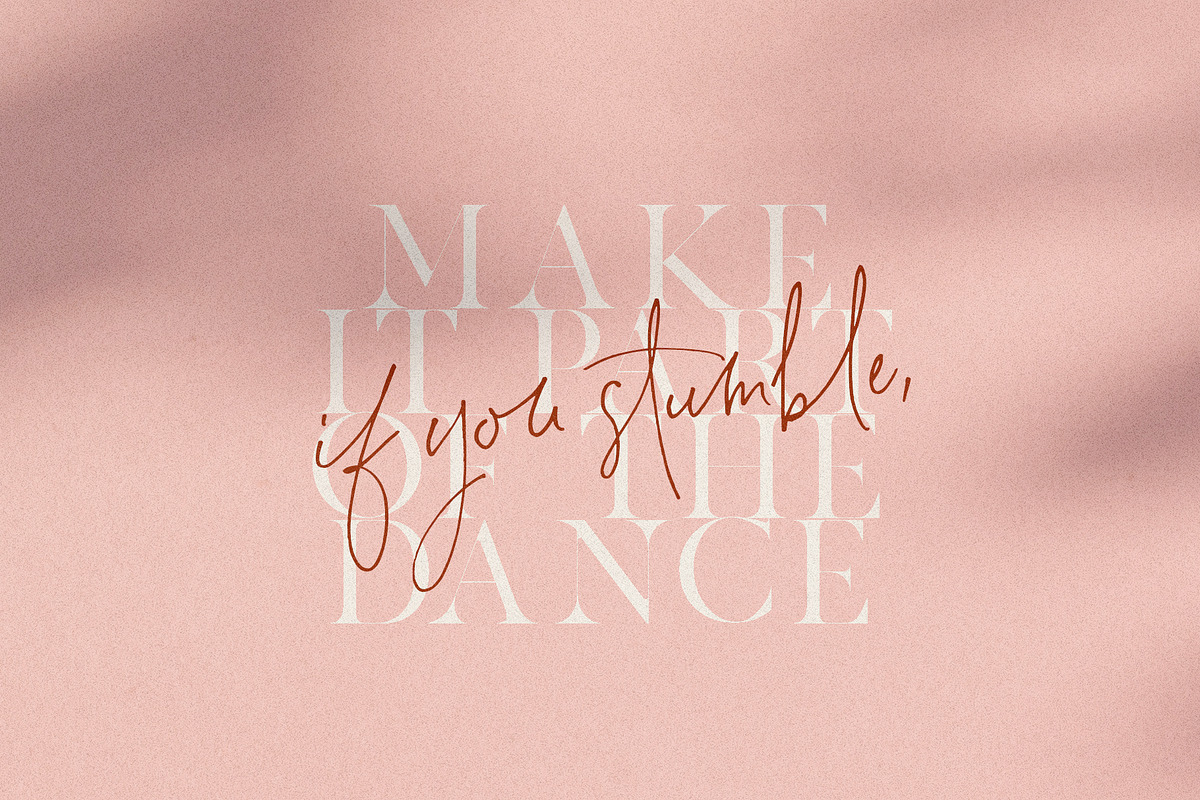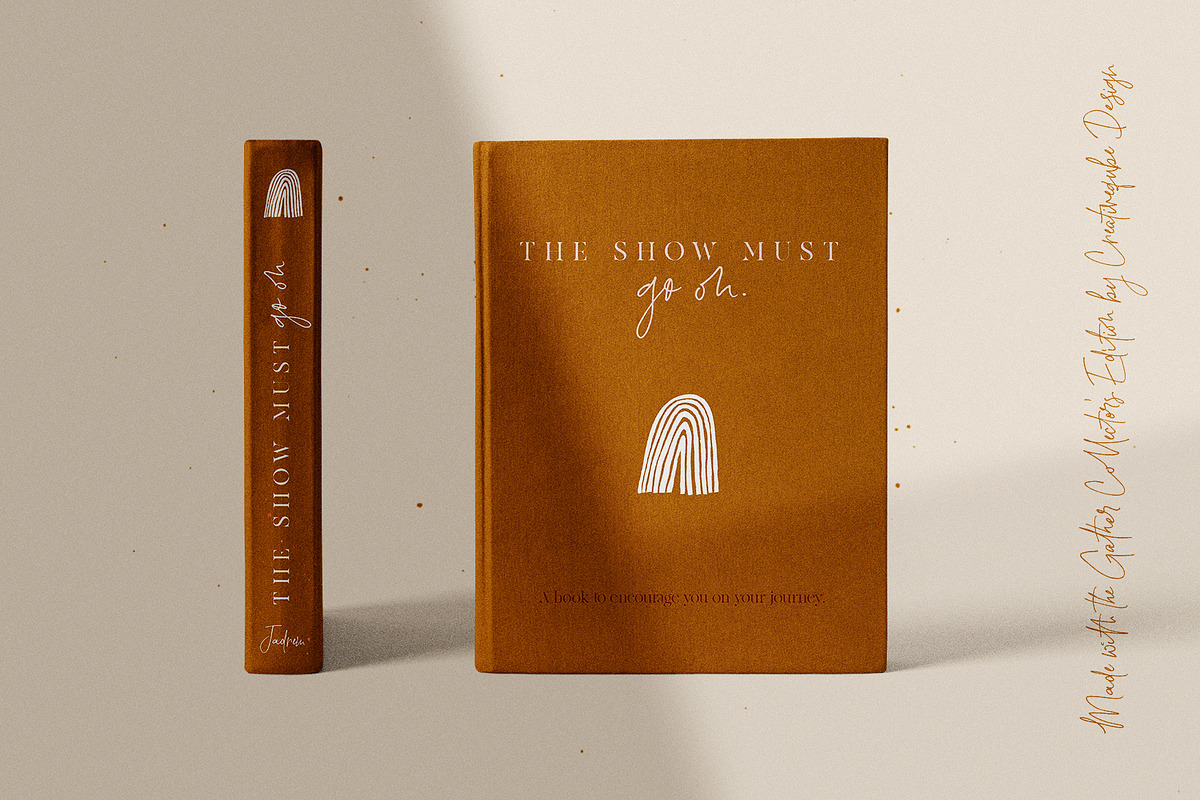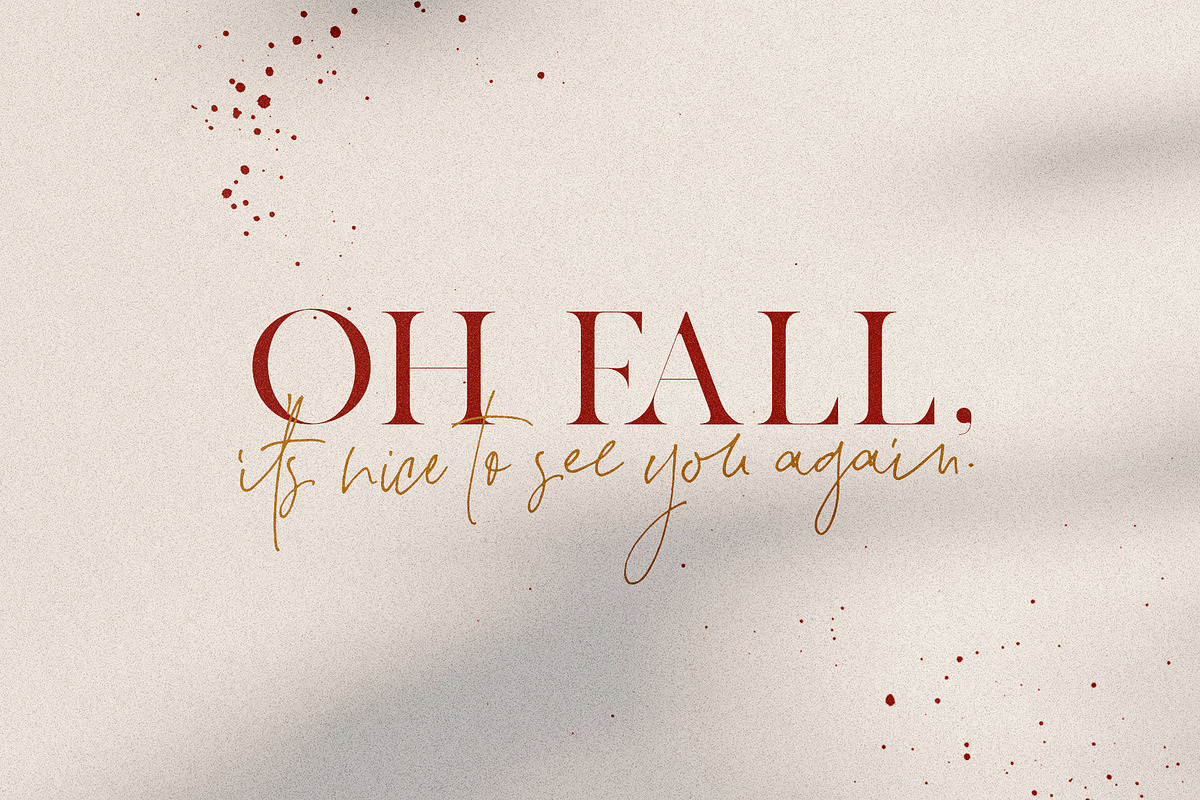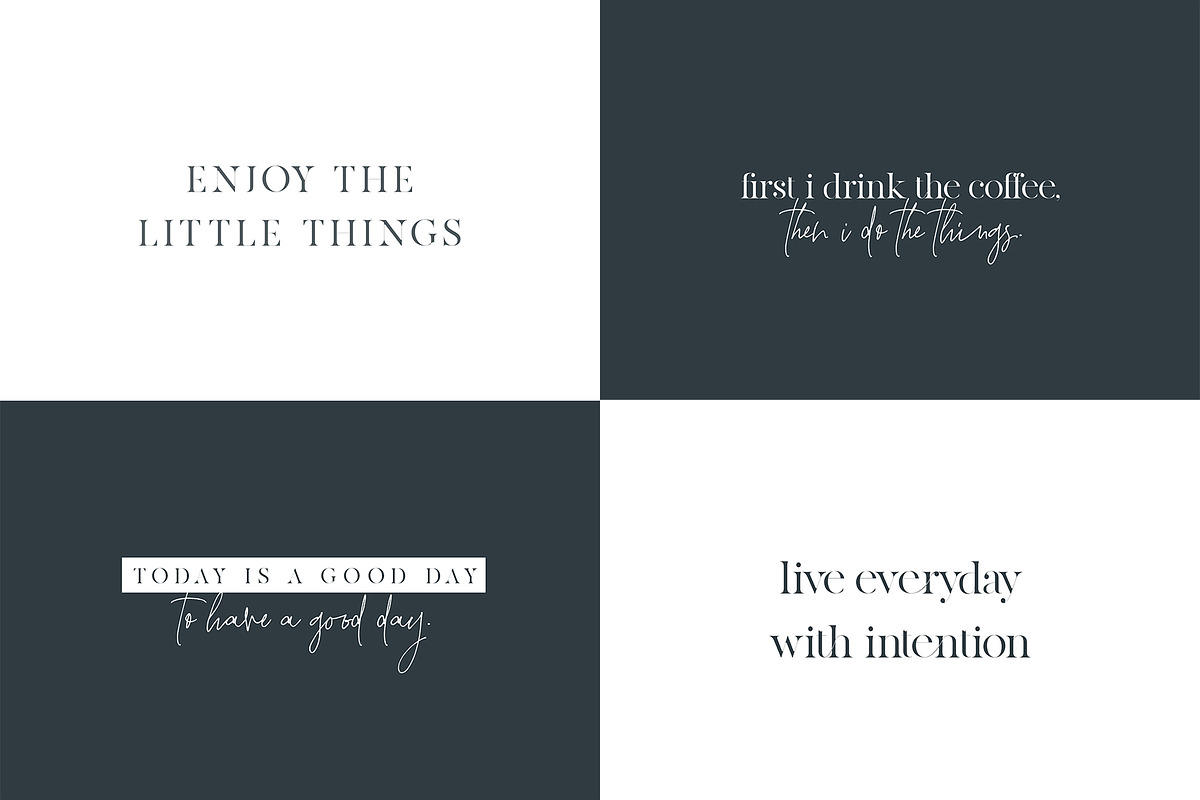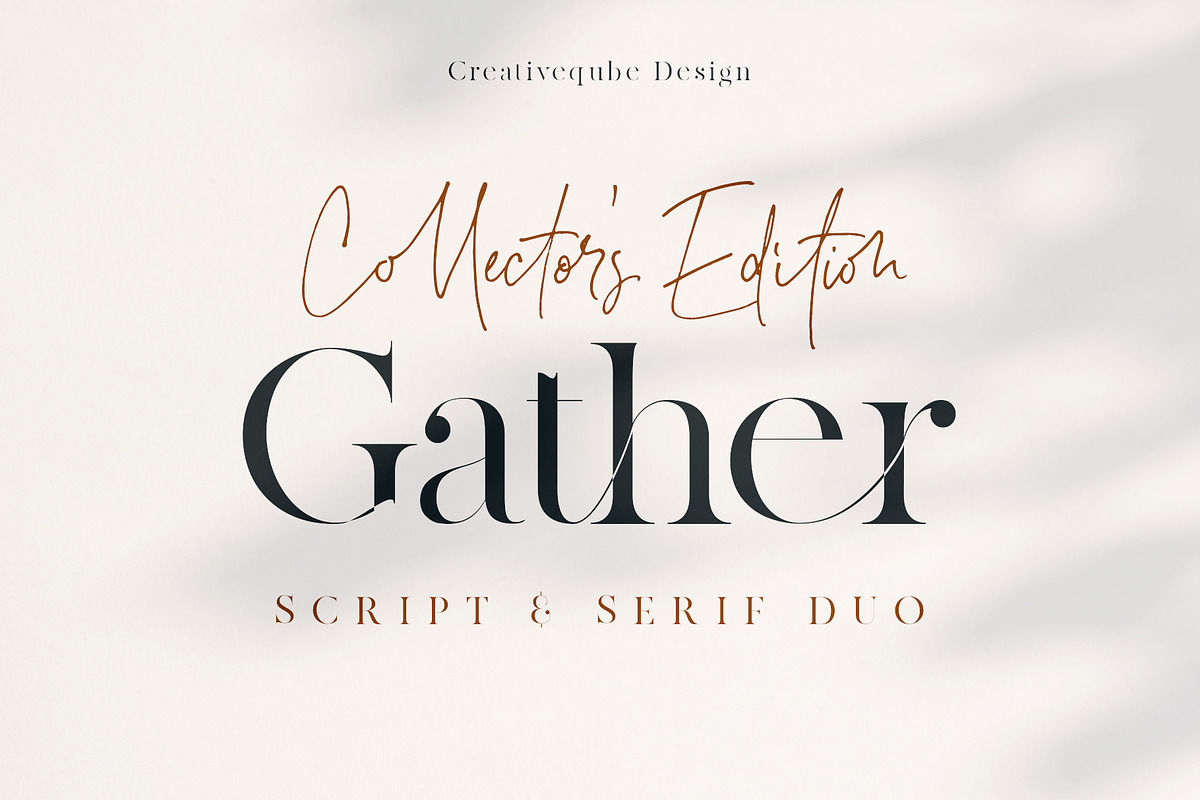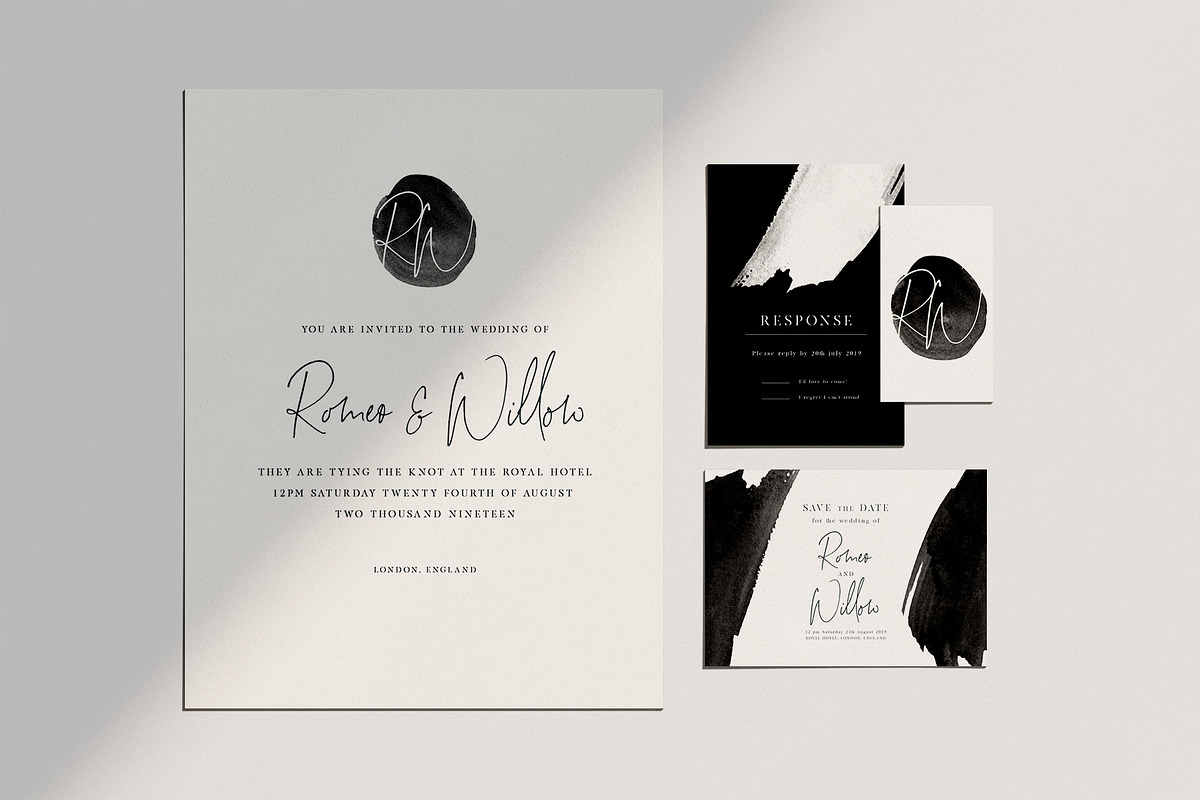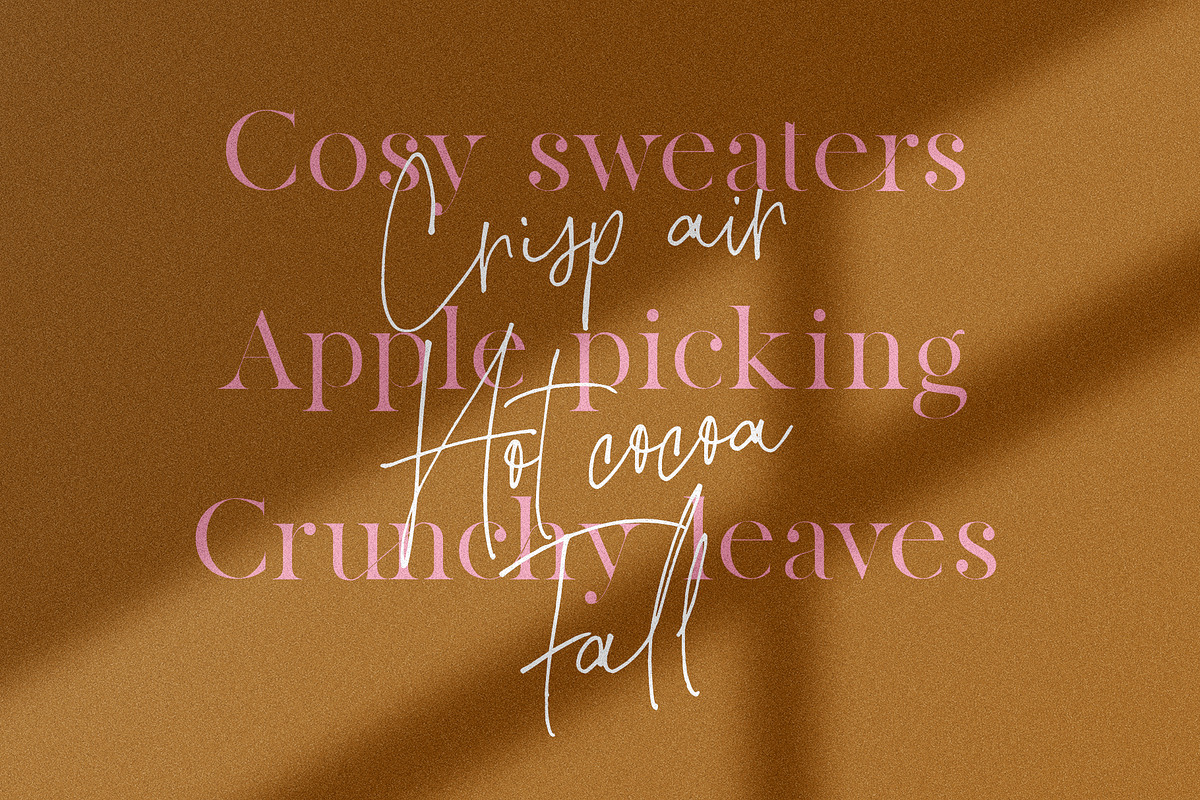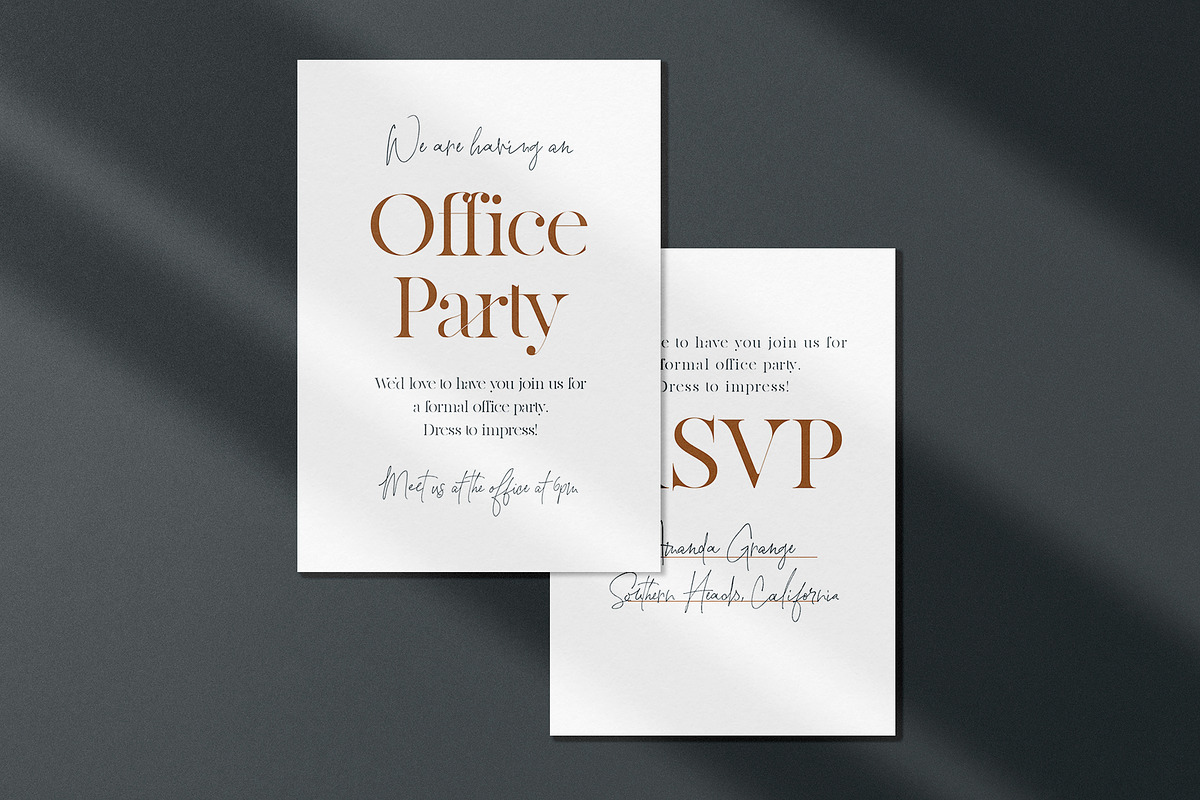
Gather Collector's Edition Font Duo
Gather Collector's Edition Font Duo is a fun hand written font duo that makes for stunning logos, quotes, wedding invites, blog posts, Instagram, and more!
They pair beautifully together in all kinds of applications. The serif looks gorgeous with tracking set at 200, as well as where it's normal setting at zero.
Gather Serif is a serif font that just goes so well with the script. It has a set of ligatures to create interest, making a statement where you need one. This serif looks amazing in lowercase or all caps.
- Gather Script includes lots of ligatures to make everything look perfectly natural and hand written.
- It has a set of ligatures to create interest, making a statement where you need one.
- This serif looks amazing in lowercase or all caps.